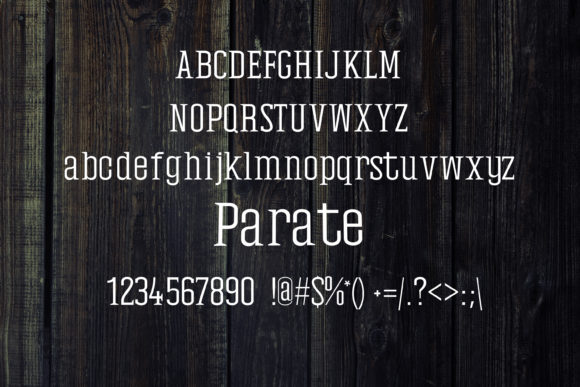
Introduction to Parate Font
Remember the moment when you stumbled upon that perfect font that elevated your design project from ordinary to extraordinary? For many designers, this moment is a treasure trove of creative possibilities. One such font that has been making waves in the design community is the Parate Font.
As a strong serif font, Parate Font is more than just a pretty face; it’s a powerful tool that can transform any design project into a true standout. With its unique blend of style and sophistication, this font is a must-have for designers looking to add a touch of elegance to their creative projects. Whether you’re working on a branding project, a website, or a print ad, Parate Font is sure to make a lasting impression.
Key Features of Parate Font
- Size: The Parate Font family includes 12 fonts, each with multiple weights and styles, offering a wide range of design options.
- Unique characteristics: The Parate Font features a modern and sleek design, with clean lines and a minimalist aesthetic, making it perfect for branding and identity projects.
- Designed to be versatile and adaptable, the Parate Font is suitable for a wide range of creative projects, from digital interfaces to print materials.
Honest Review: Parate Font
I recently had the chance to work with the Parate Font, and I must say it’s been a game-changer for my creative projects. This font is a must-have for any designer looking to elevate their work with a high-quality, unique aesthetic.
What works well: ✨ The transparent background feature of the Parate Font is incredibly versatile, allowing me to easily integrate it into my designs without any distractions. The font itself is also incredibly legible, making it perfect for a wide range of creative projects.
- ✨ Highly customizable
However, I did encounter a few limitations while working with the Parate Font: ⚠️ The font can be a bit difficult to read at small sizes, and the transparent background can sometimes cause issues with text overlays.
Overall, I’m thoroughly impressed with the Parate Font. Its high quality and creative potential make it a valuable design resource that I’ll be returning to again and again. If you’re looking for a unique font to take your designs to the next level, I highly recommend giving the Parate Font a try.
Tips for Getting the Most Out of Parate Font
Use the Parate Font in conjunction with a high quality image or background to create a stunning design. Experiment with different font sizes and styles to add depth and interest to your project.
The Parate Font is ideal for creative projects that require a unique and eye-catching font. It’s perfect for designing logos, posters, and social media graphics. You can also use it to create a free download or a design resource for your clients.